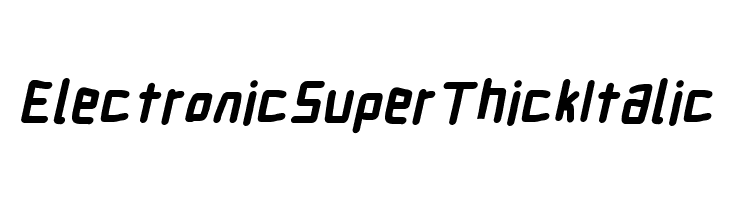
A bold, italicized font with thick strokes and a modern, dynamic style.
A bold, italicized font with a modern and dynamic style.
A modern, italicized font with a bold, dynamic style and rounded edges.
A bold, italicized font with a modern, electronic style.
A bold, modern font with a heavy, electronic style.